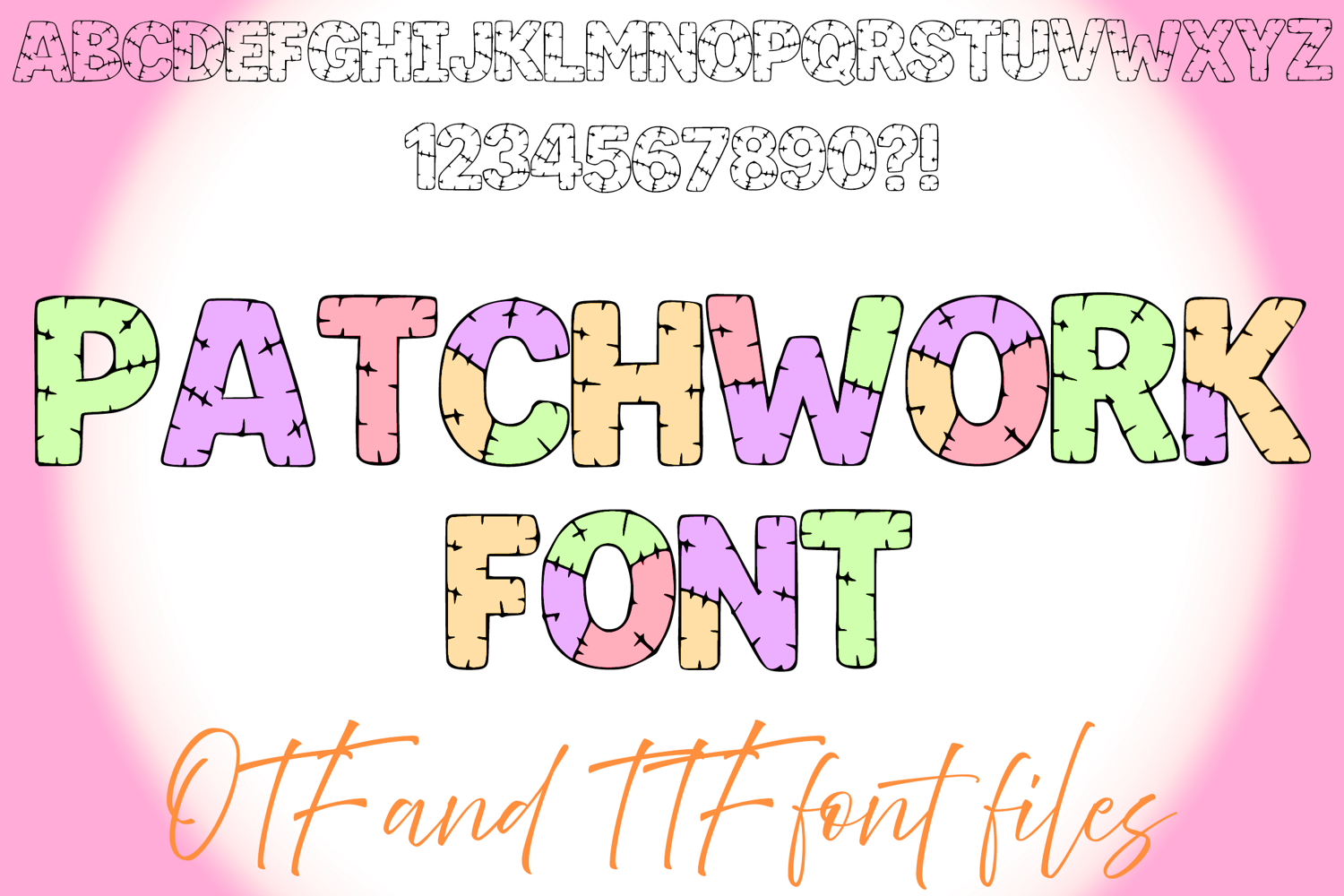
Patchwork Alphabet Lettering ABC Text Font Stitch Typeface OTF Illustration
A cartoon style font where you can create your own words and colour them to your vision!